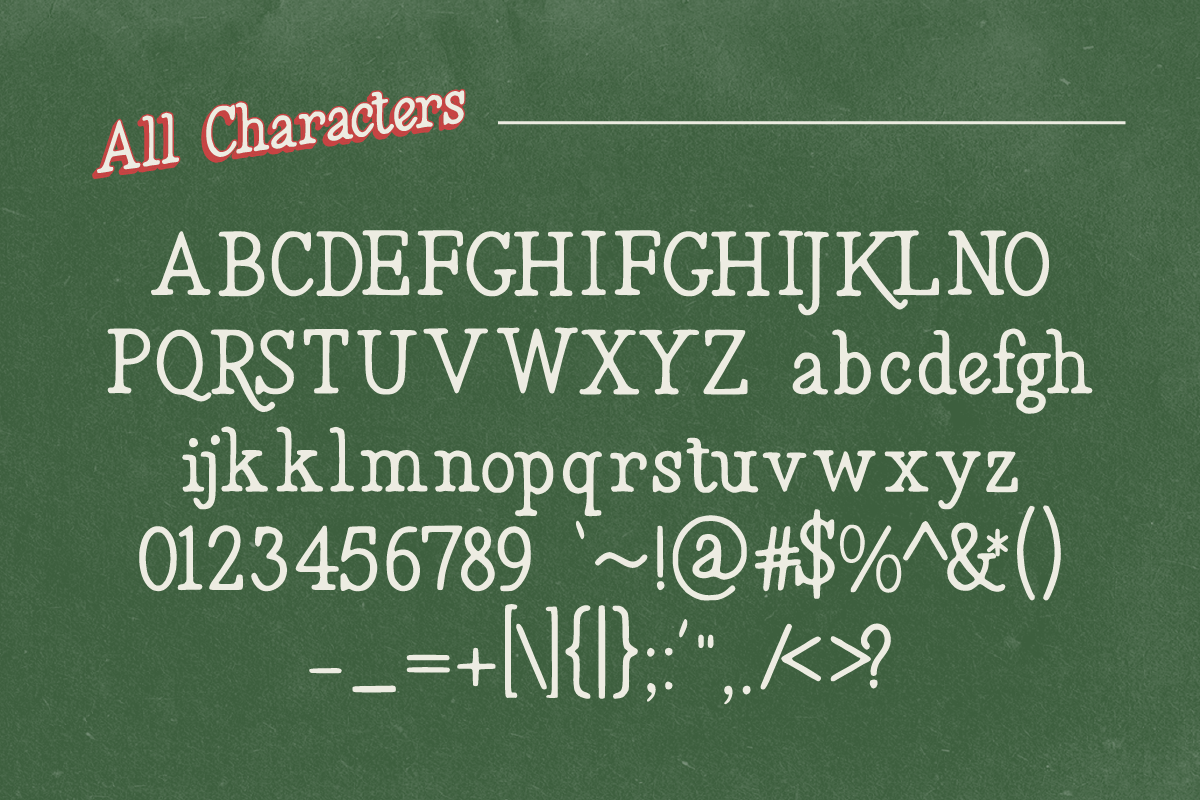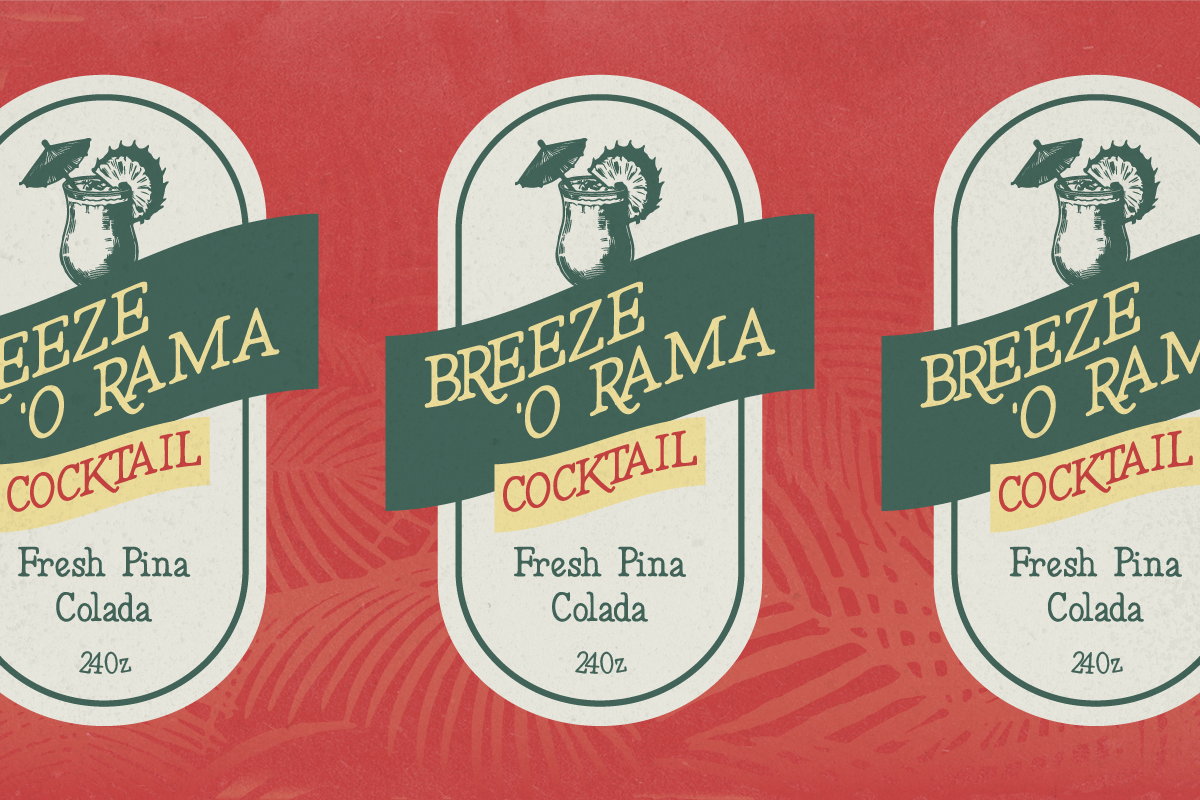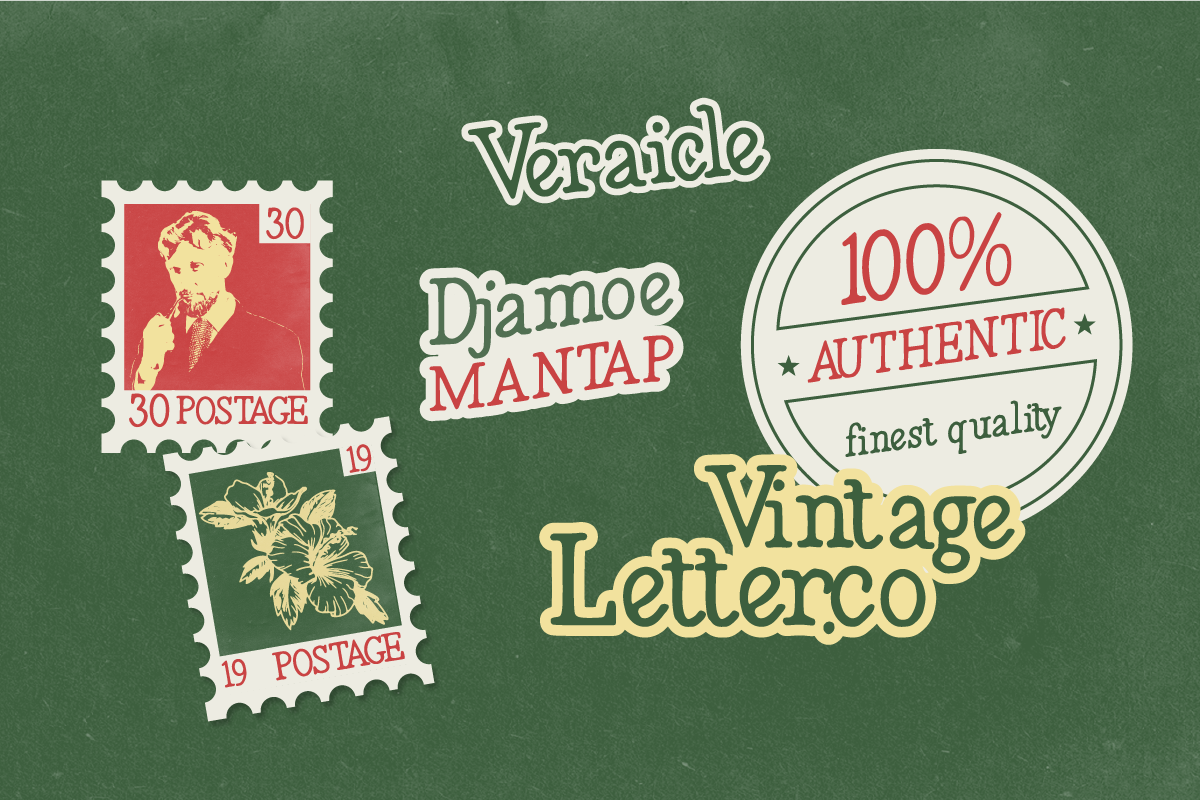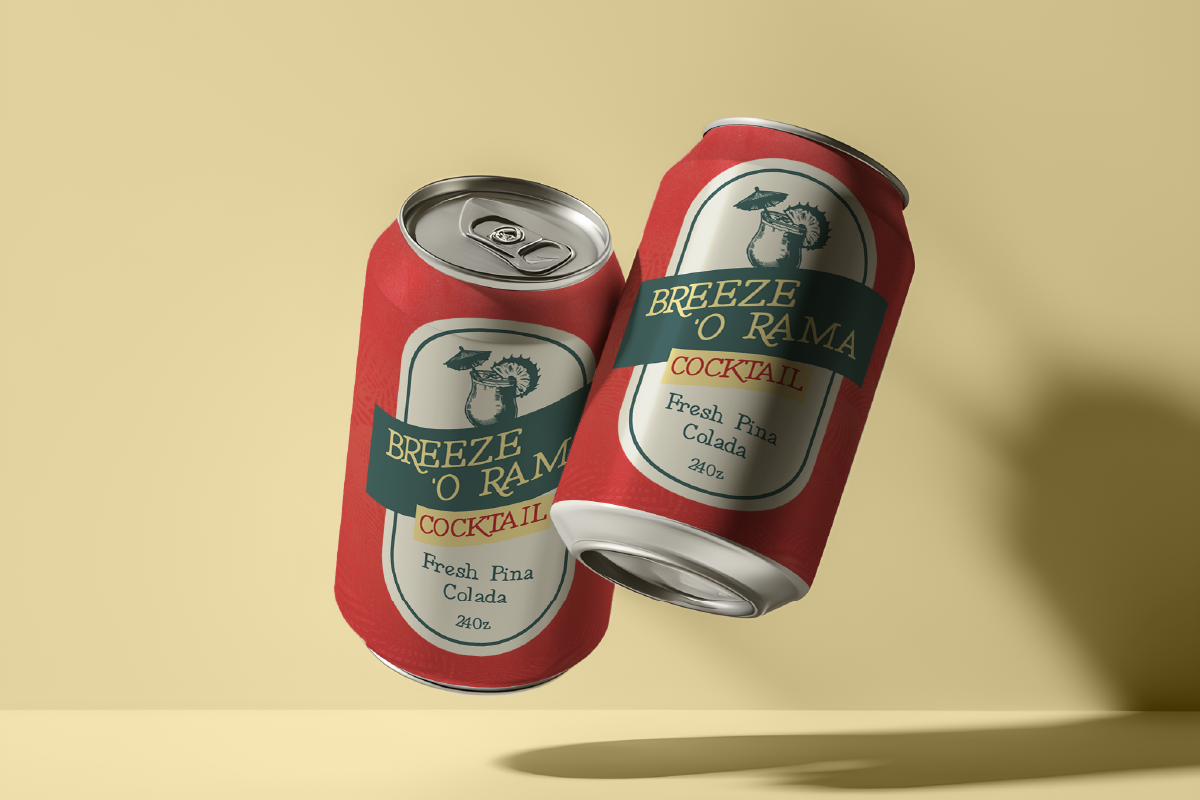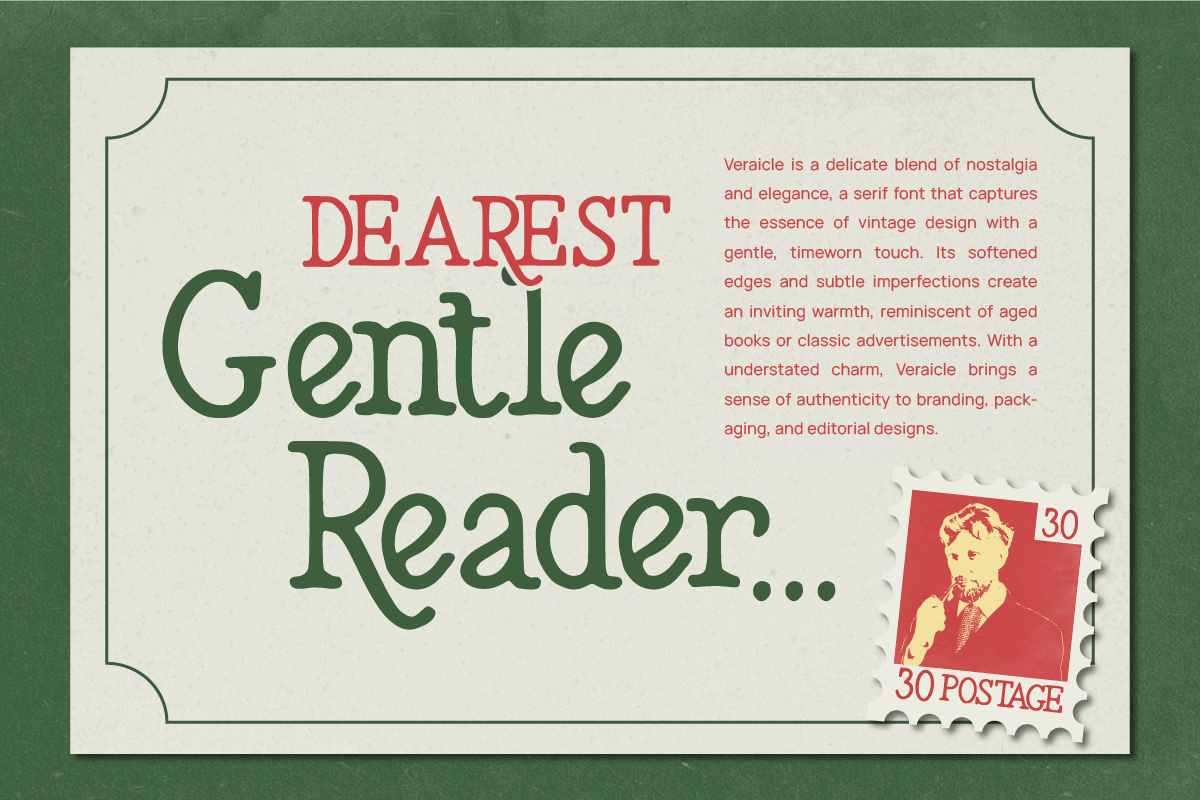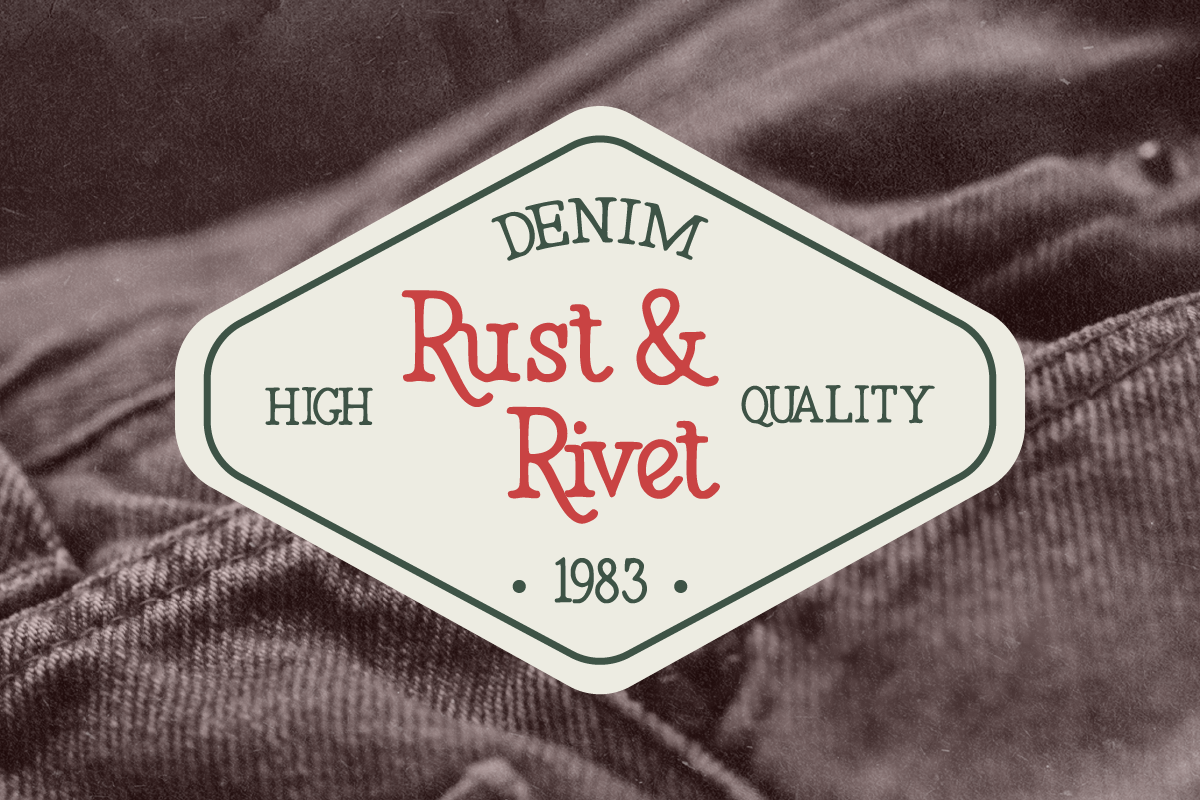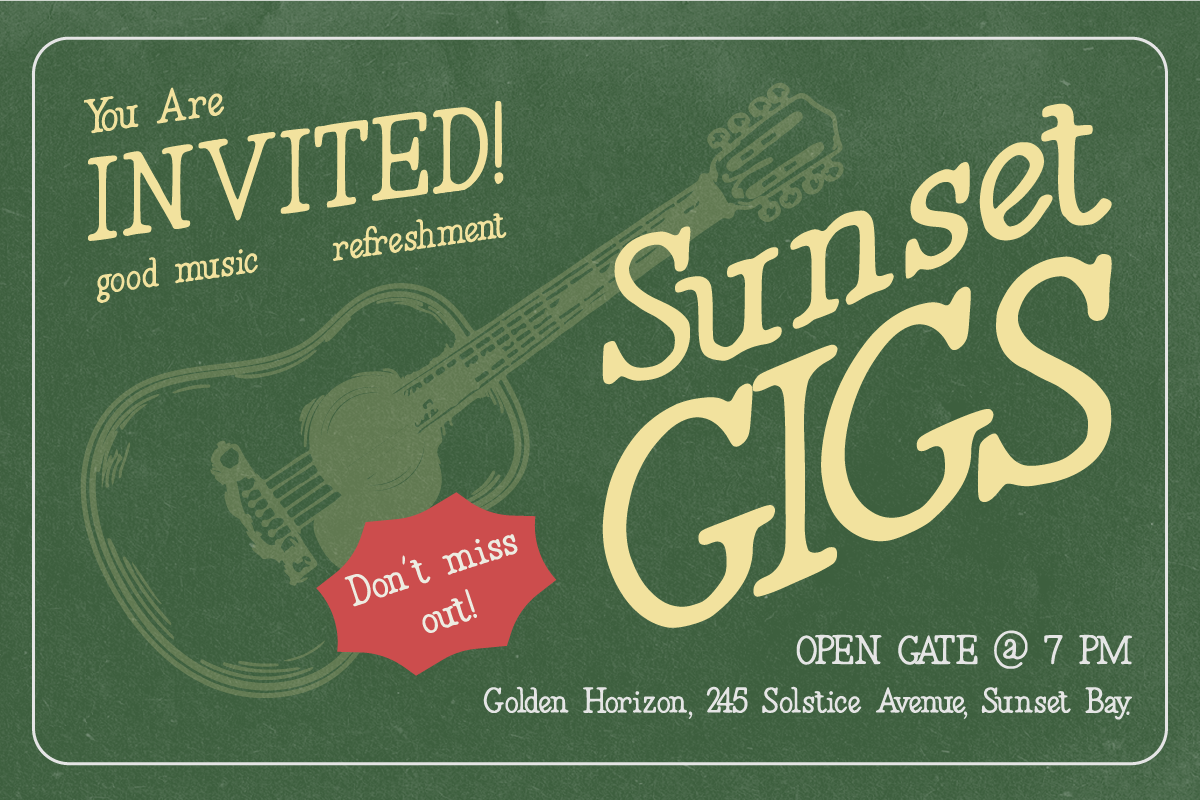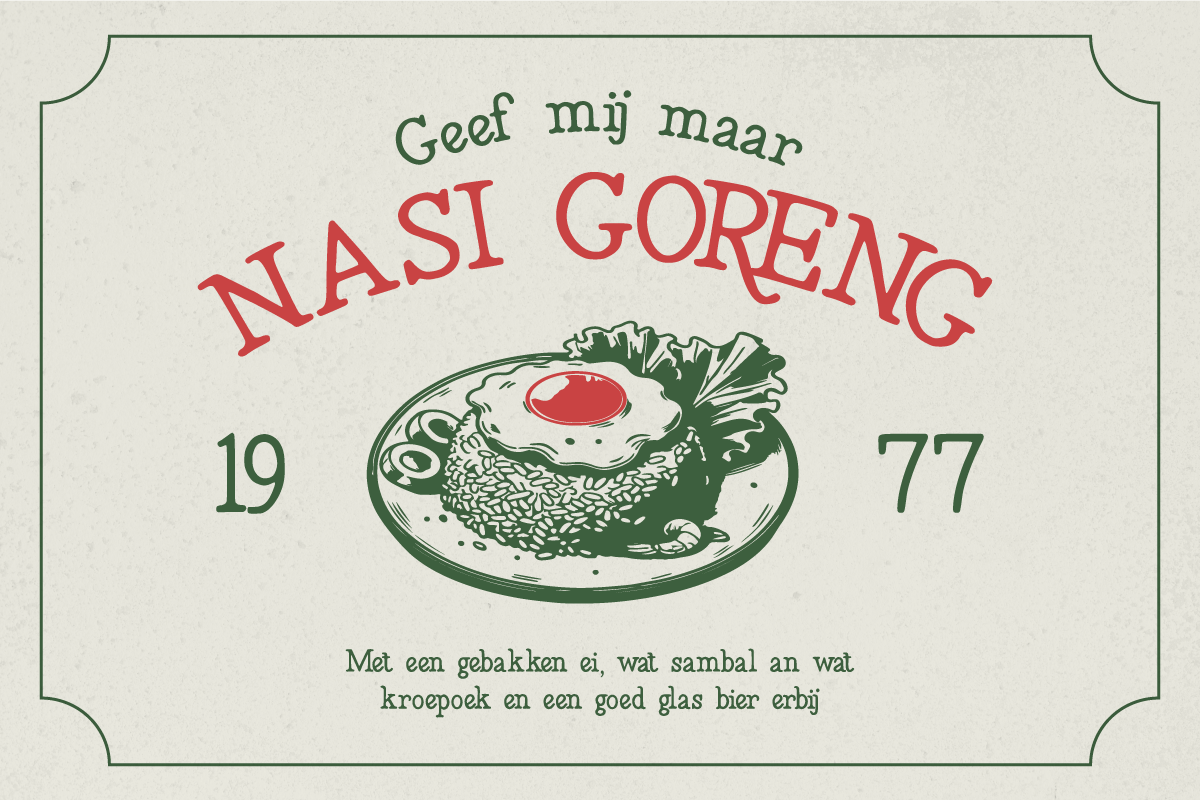
Veraicle - Vintage Rough Serif
Veraicle – Vintage Rough Serif Typeface
Veraicle is a vintage rough serif with bold typography and a classic aesthetic, blending retro design with a timeless style. Its tall letterforms, high-contrast serifs, and textured lettering add authenticity and character to any project. Perfect for branding, packaging, editorial design, posters, signage, and nostalgic displays, Veraicle delivers a unique and handcrafted touch.
- 1 Style: Regular
- Full Character Set: Uppercase, lowercase, numbers, symbols, and punctuation
Embrace retro elegance with Veraicle! ✨